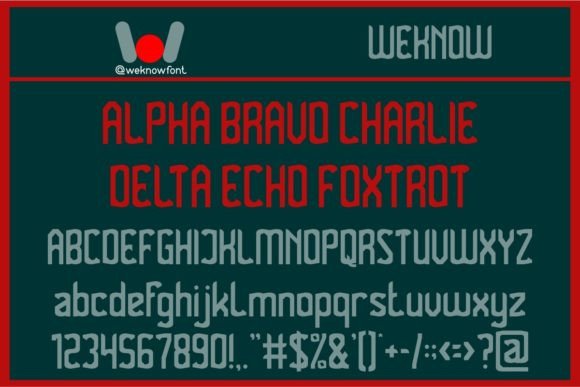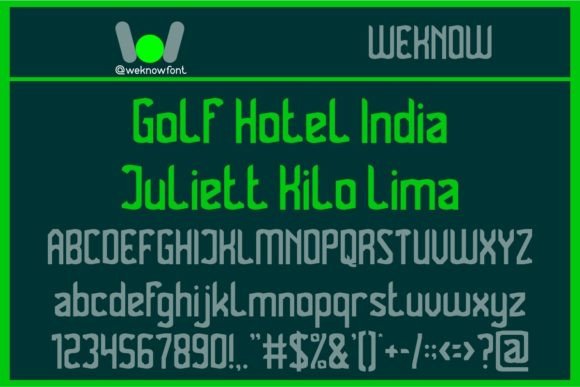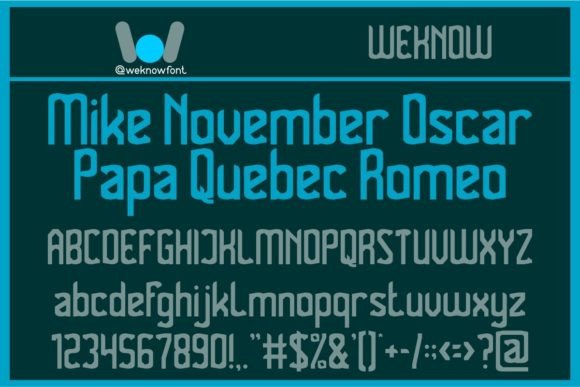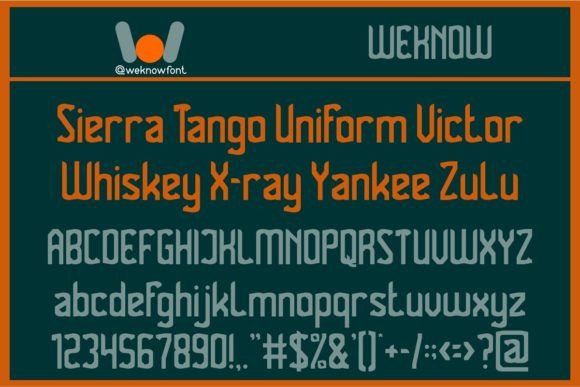
Introduction to Military Phonetic Font
Military Phonetic is a techno-sci-fi display font, suitable for a logo, logotype, headline, corporate identity, brand identity, apparel industry, poster, music, movie, game, magazine, book, comic, cartoon, YouTube, Instagram, website, or any of your creative design projects.